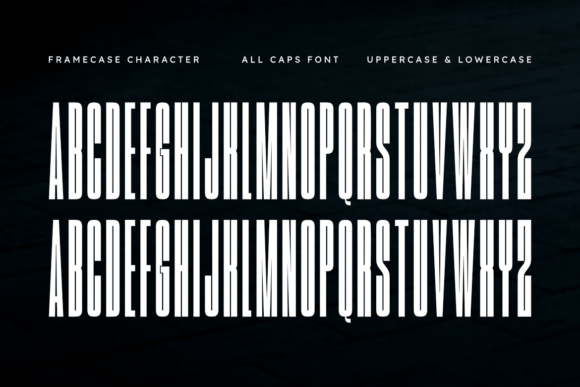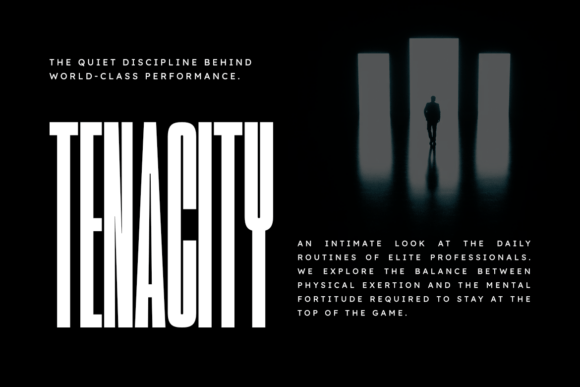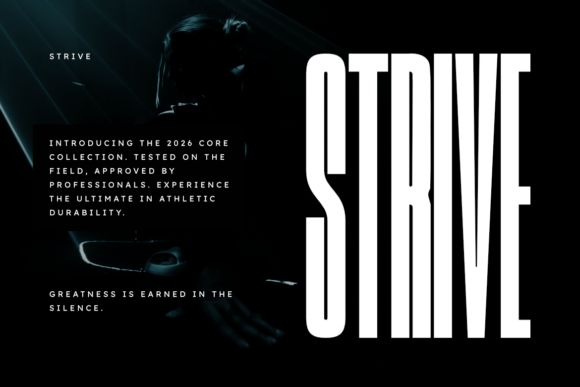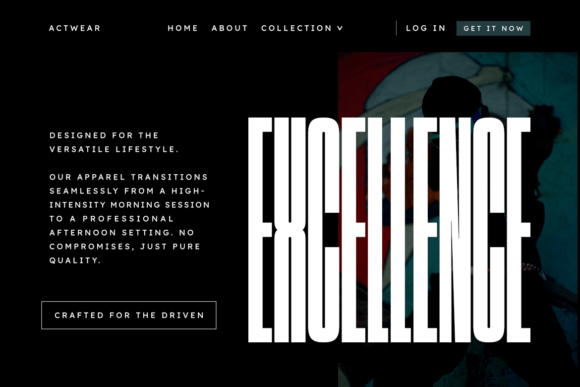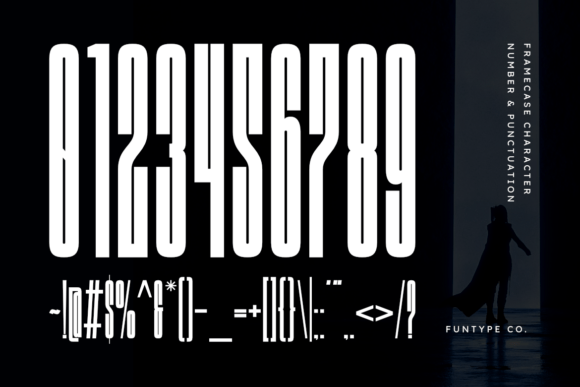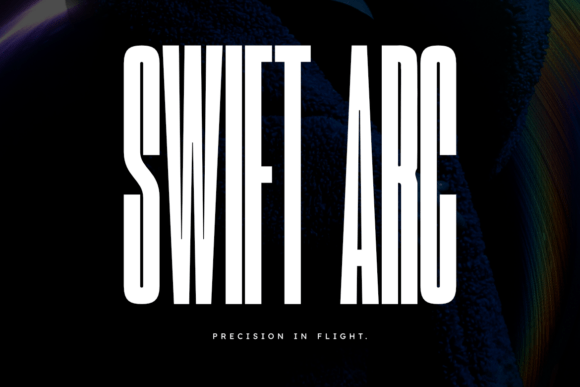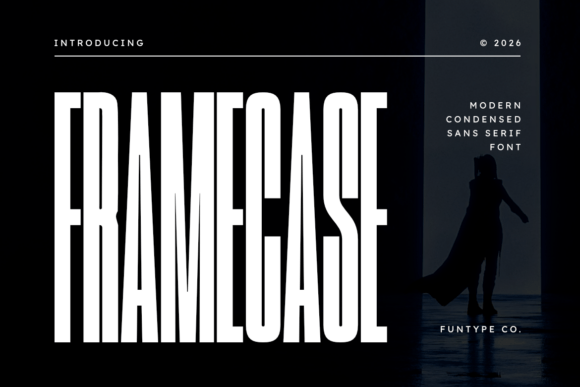
Introducing Framecase Font: The Ultimate Choice for High-Impact Typography
In the world of typography, a font can make or break the visual impact of a design. For designers and crafters looking for a bold and powerful font to elevate their projects, Framecase is an exceptional choice. This modern condensed sans serif font is specifically designed for high-impact and precise typography, making it perfect for a wide range of applications.
Key Features of Framecase Font
Framecase boasts a refined vertical structure and clean, solid lines that give it a confident and balanced design. This font is characterized by its:
- Bold and powerful appearance: Framecase is designed to make a statement, making it ideal for strong headlines, professional sports logos, and high-impact digital posters.
- Modern condensed sans serif design: Its sleek and streamlined look ensures that your text is easily readable, even at smaller sizes.
- Refined vertical structure: This feature gives Framecase a sense of stability and professionalism, making it suitable for industrial branding and other applications where a strong visual identity is required.
- Clean and solid lines: The font’s clean lines ensure that it remains legible and visually appealing, even when used at larger sizes.
Framecase is an incredibly versatile font that can be used in a wide range of design projects, including:
- Strong headlines: Use Framecase to create bold and attention-grabbing headlines that demand attention.
- Professional sports logos: The font’s confident and powerful design makes it an excellent choice for sports branding and team logos.
- Industrial branding: Framecase’s refined vertical structure and clean lines make it perfect for industrial branding and manufacturing companies.
- High-impact digital posters: Create stunning digital posters with Framecase’s bold and powerful typography.
Why Choose Framecase Font?
With Framecase, you can give your designs a striking, professional, and advanced look. Here are just a few reasons why you should consider using this exceptional font:
- Unique and memorable: Framecase’s bold and powerful design ensures that your text stands out from the crowd.
- Highly legible: The font’s clean lines and refined vertical structure make it easy to read, even at smaller sizes.
- Versatile: Framecase can be used in a wide range of design projects, from strong headlines to industrial branding.
In conclusion, Framecase is an exceptional font that is perfect for designers and crafters looking for a bold and powerful modern condensed sans serif font. With its refined vertical structure, clean lines, and confident design, Framecase is sure to elevate your designs and give them a striking, professional, and advanced look. Whether you’re creating strong headlines, professional sports logos, or high-impact digital posters, Framecase is the ultimate choice for high-impact typography.